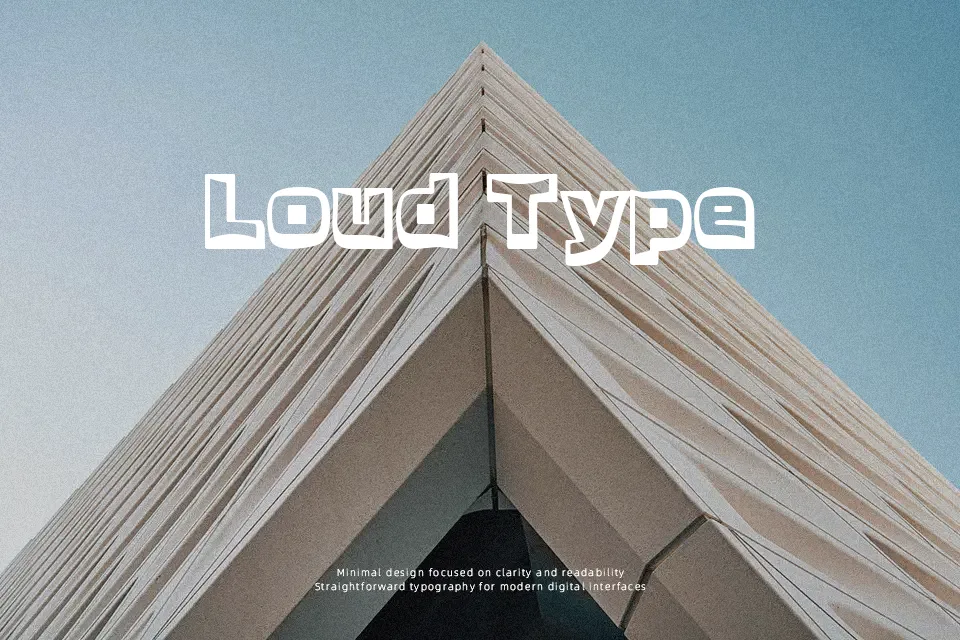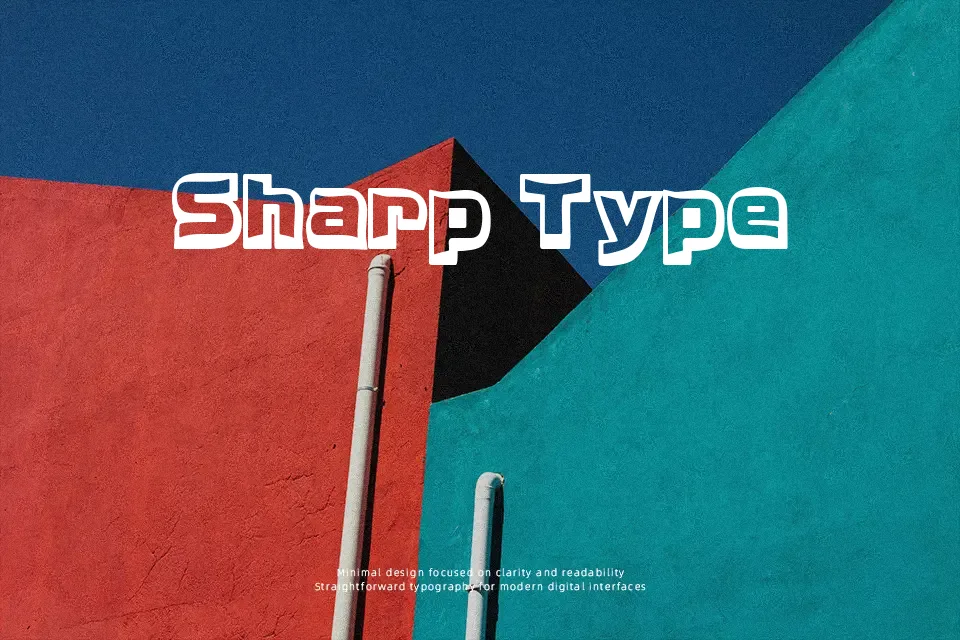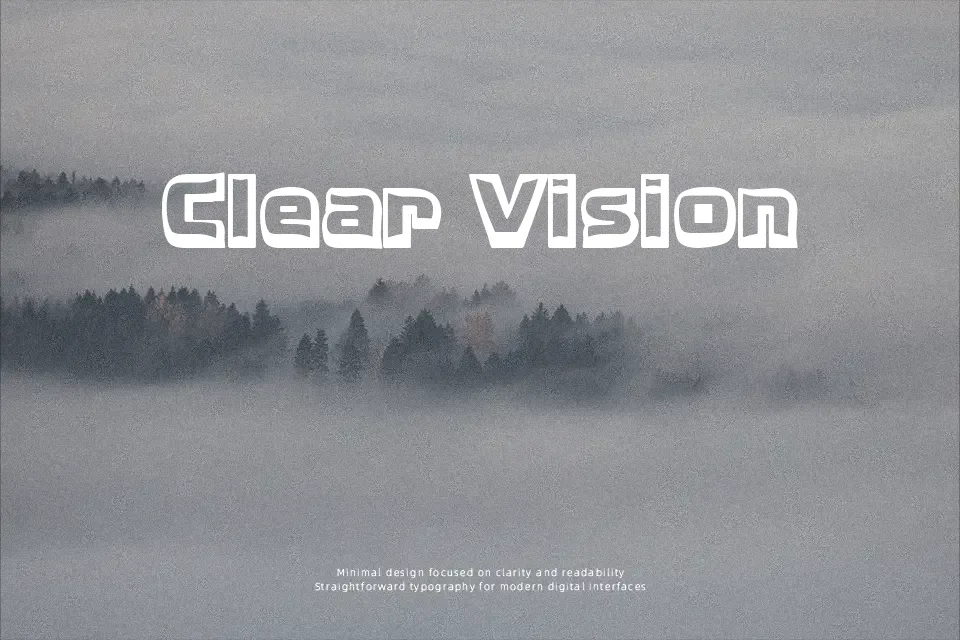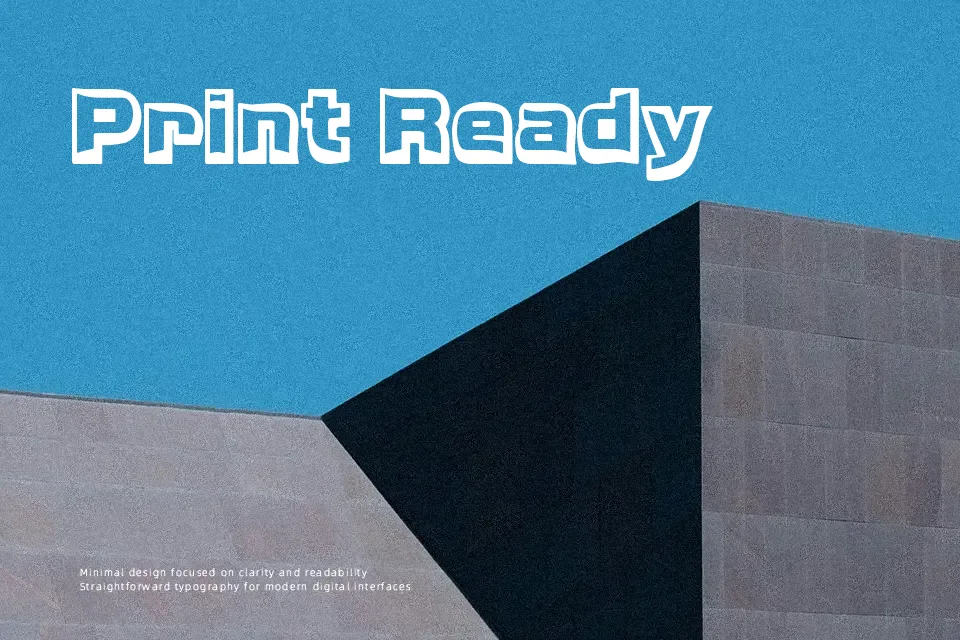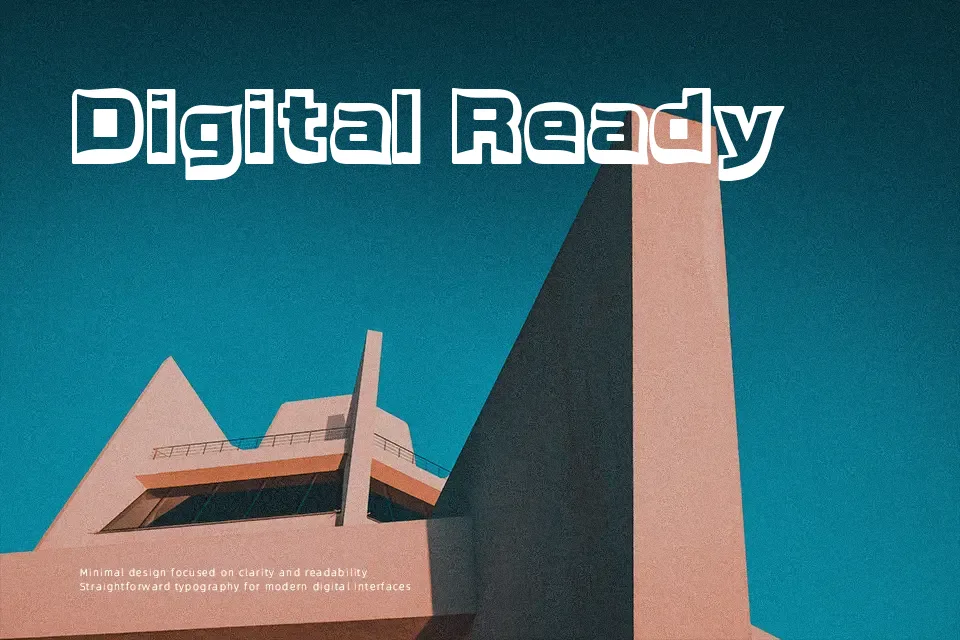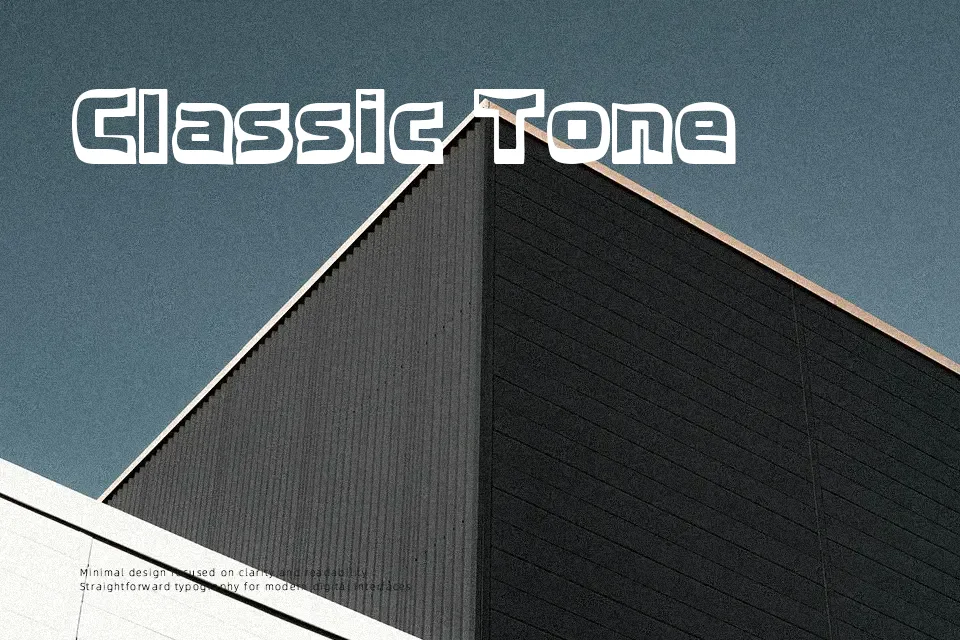
Chiringuito Espacial Font
Chiringuito Espacial Font features an expanded display construction built with heavyweight rounded strokes and thick geometric contours. The design utilizes tight horizontal spacing and uniform stroke contrast, giving each letterform a solid, blocky presence with distinct modular proportions. In large-scale applications such as sci-fi apparel graphics, event banners, and gaming merchandise, the typeface provides immediate visual punch and legible headlines. However, the heavy weight and enclosed counters significantly reduce clarity in small interface labels and body copy. The generous stroke thickness ensures strong silhouette recognition across loud backgrounds, making the design particularly effective for standalone titles that demand prominent placement.
Best For: retro arcade game titles, sci-fi event posters, apparel graphic prints, merchandise headline banners
Not Ideal For: long paragraph text, mobile UI body copy, technical manuals, small spreadsheet data
Perfect for gaming, headline, and logo, with a bold and display style.